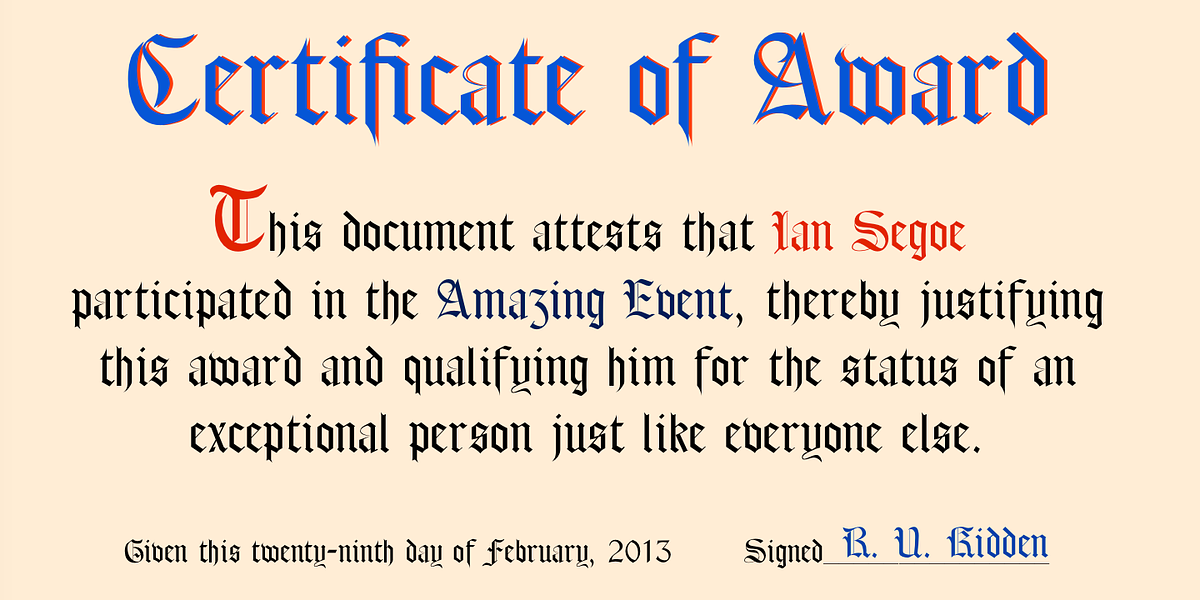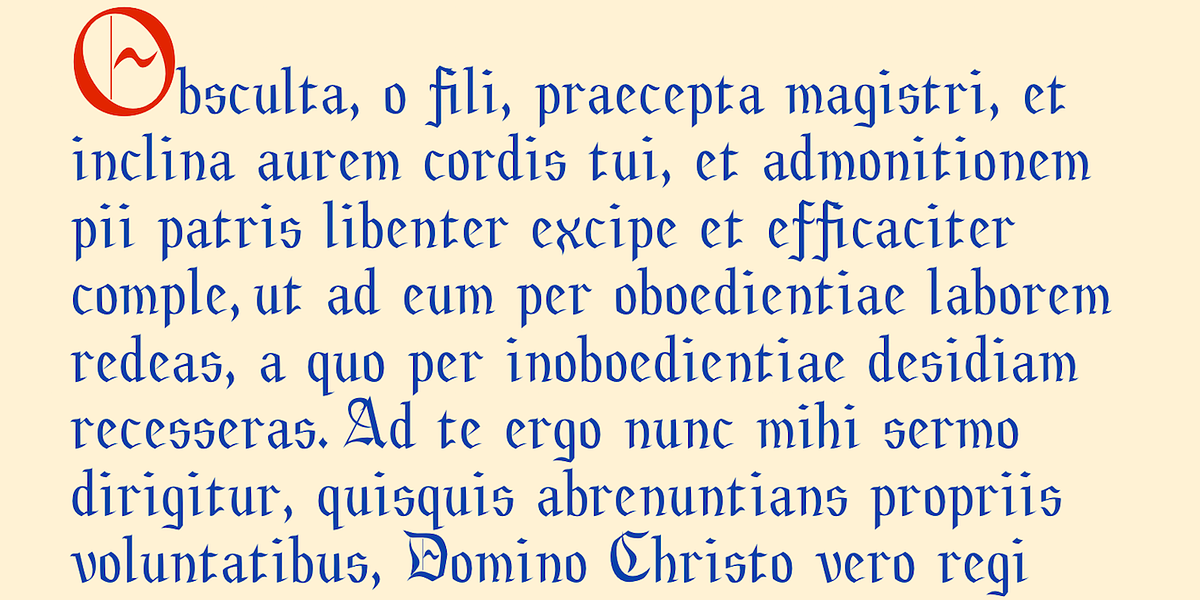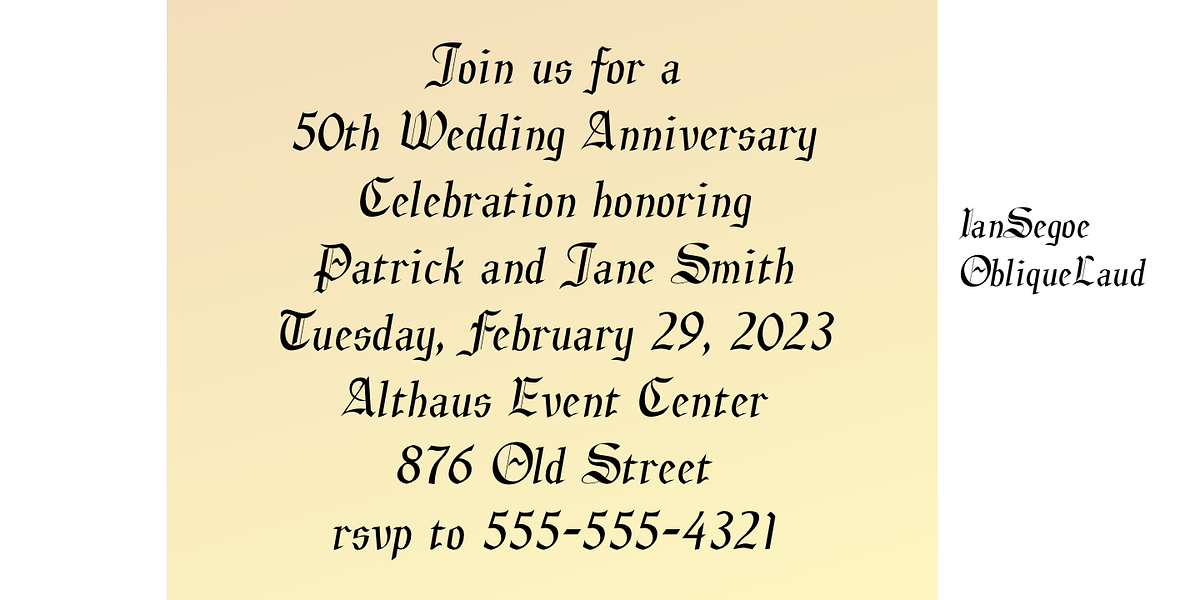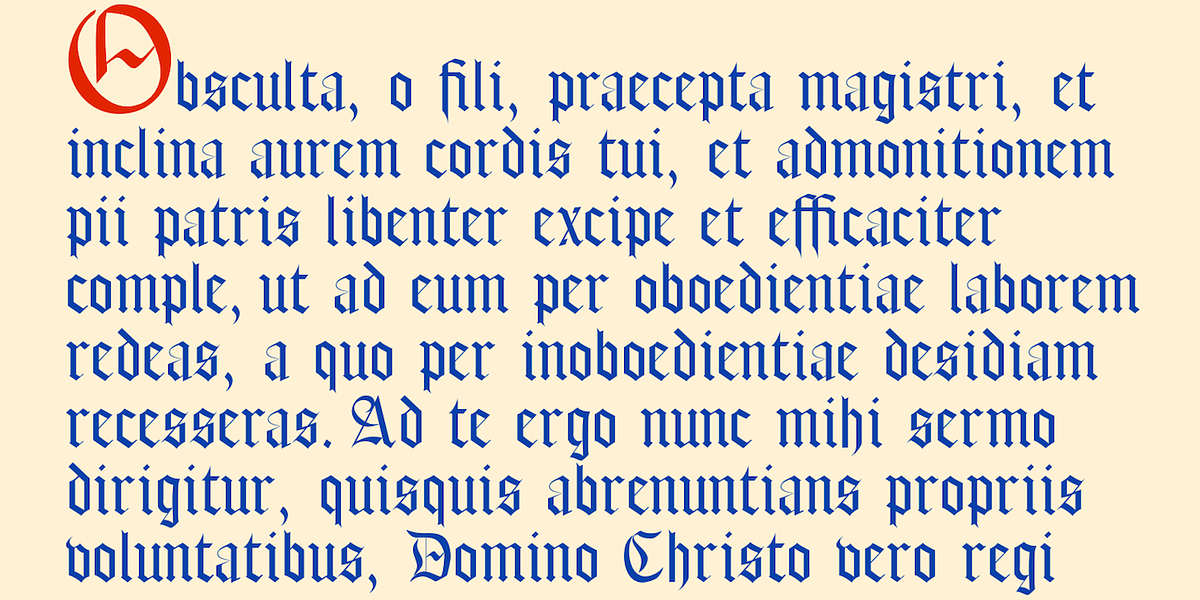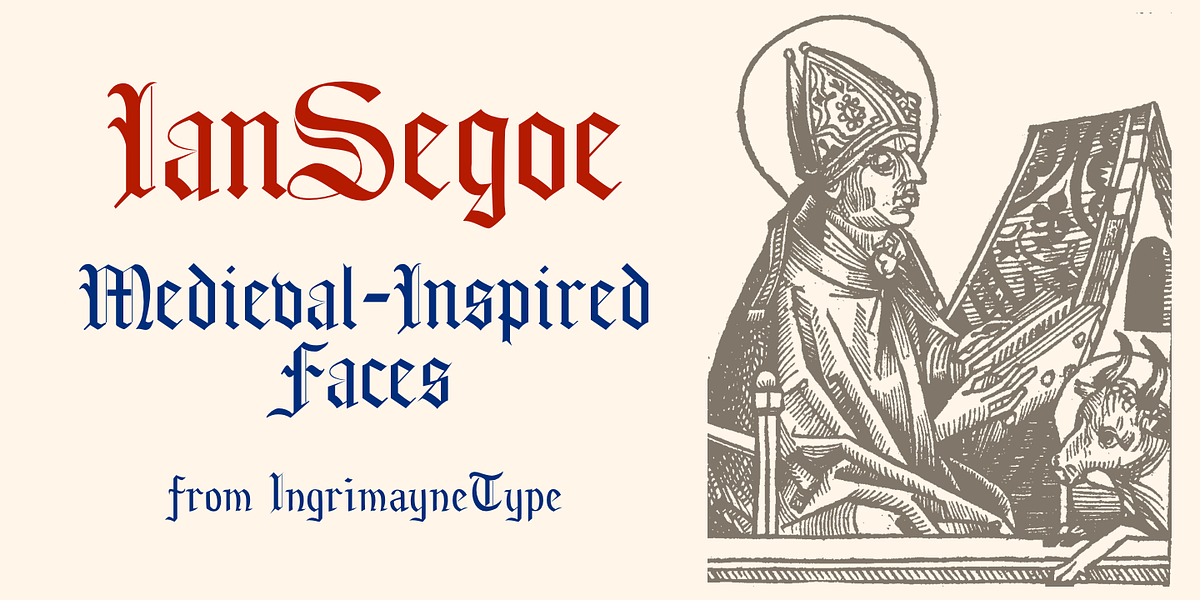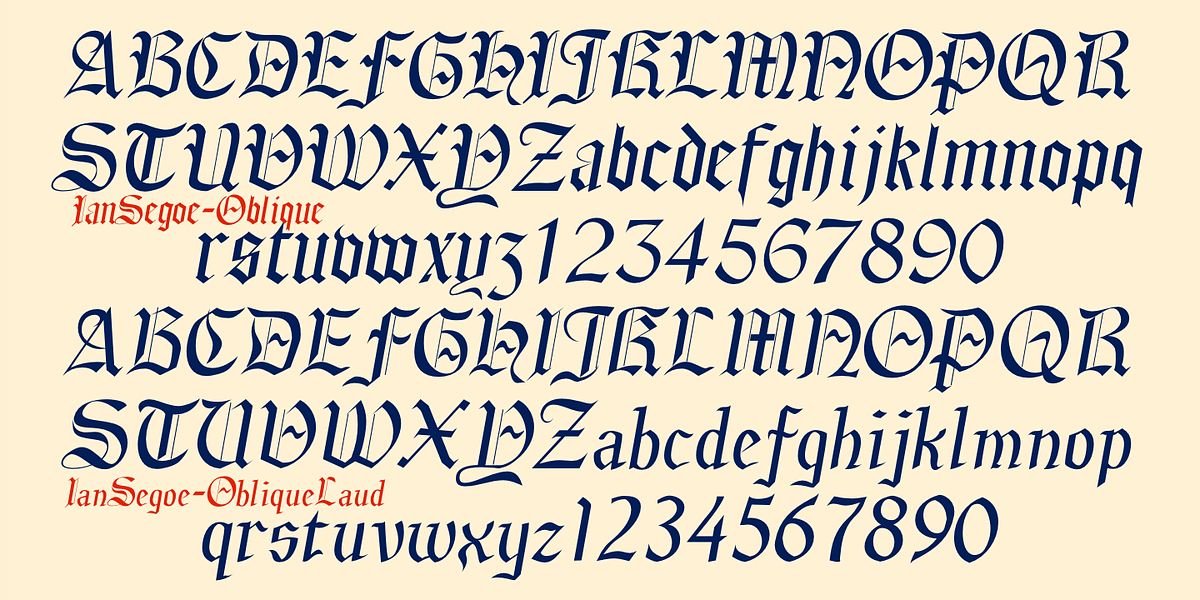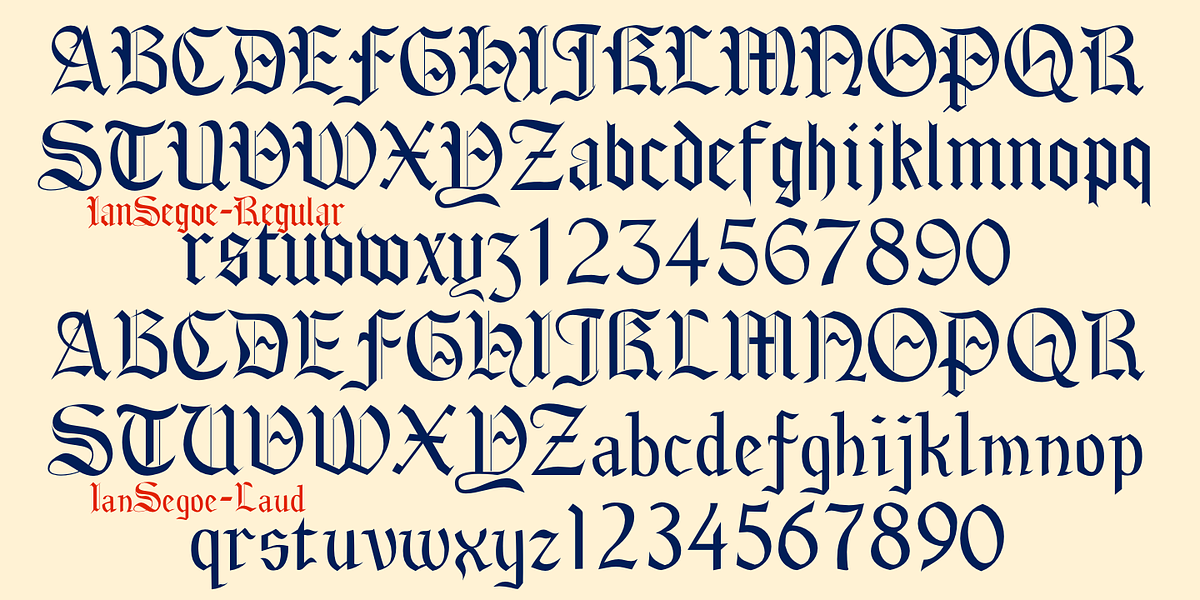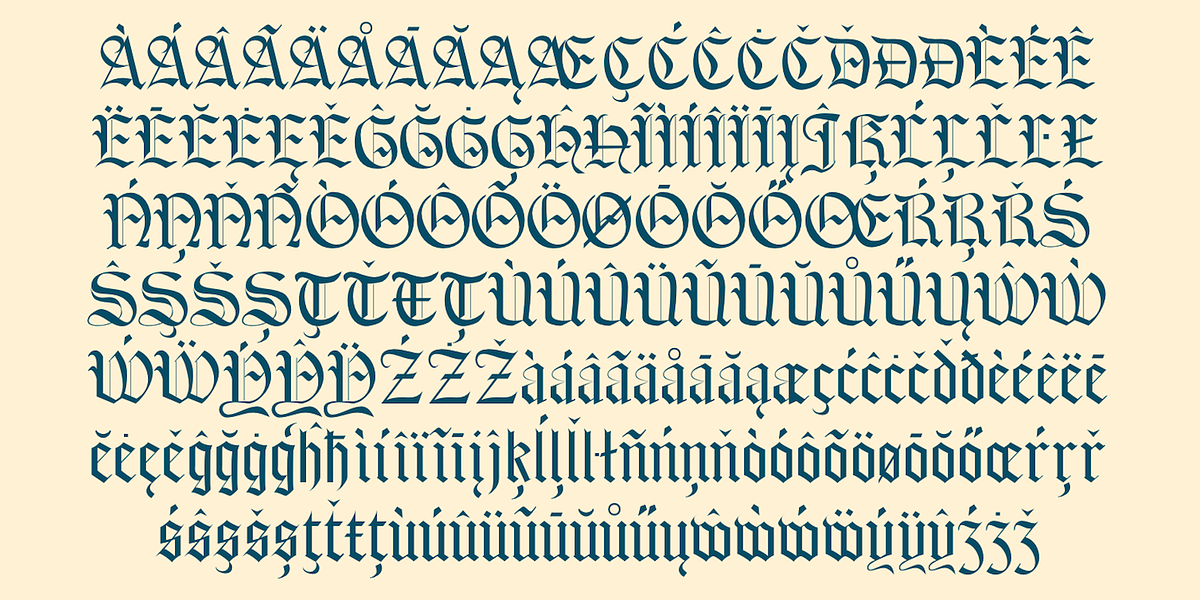
IanSegoe
IanSegoe is a blackletter font inspired by medieval typography. It features distinct upper and lowercase letter designs. The designer, IngrimayneType, drew inspiration from other medieval-themed fonts available in 1990.